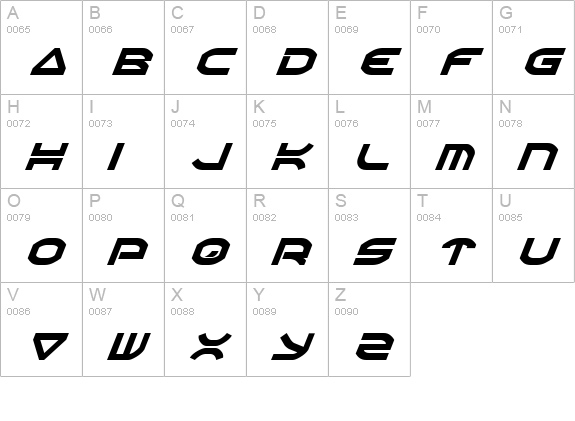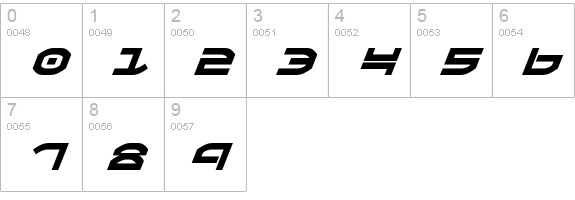
Oberon Italic is a distinctive, italic variant in the Oberon typeface family \xE2\x80\x94 well suited to design and typography projects.
Oberon Italic is a sophisticated and elegant font that exudes charm and style. Its sleek and flowing design adds a touch of class to any project, making it perfect for use in invitations, branding, and editorial designs. The italicized form of the letters gives a sense of movement and dynamism, making text appear more dynamic and engaging. What's even better is that Oberon Italic is available for free download at FontsMarket.com. This means that you can easily access this stunning font without any cost, making it a valuable addition to your font collection. Don't miss out on the opportunity to enhance your designs with the timeless beauty of Oberon Italic - download it today and elevate your projects to the next level.